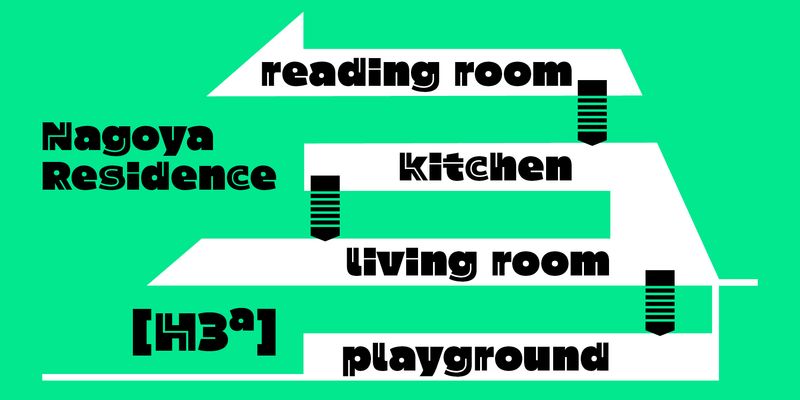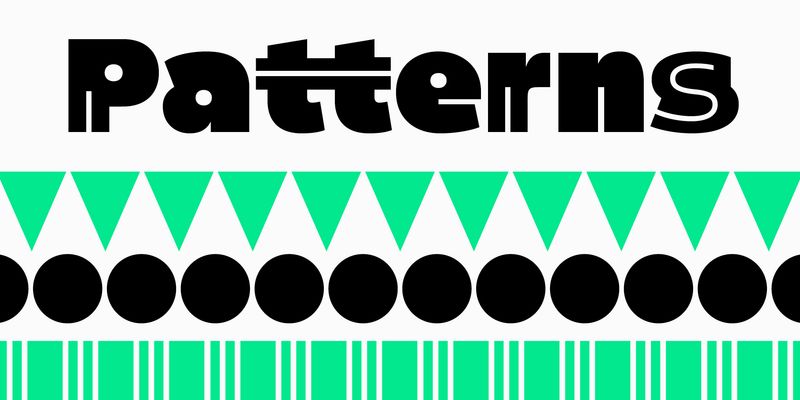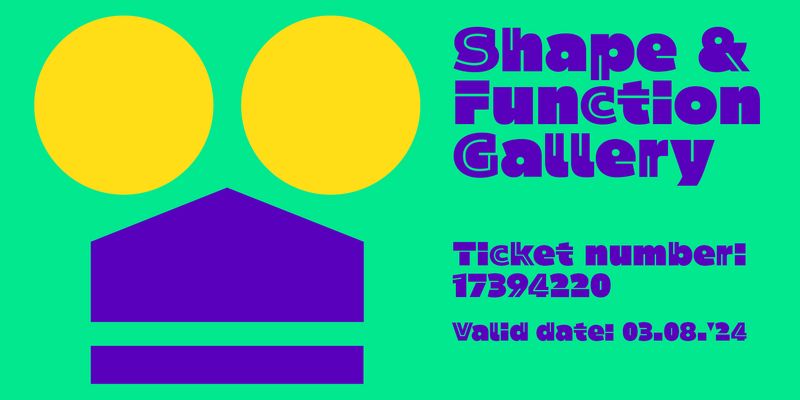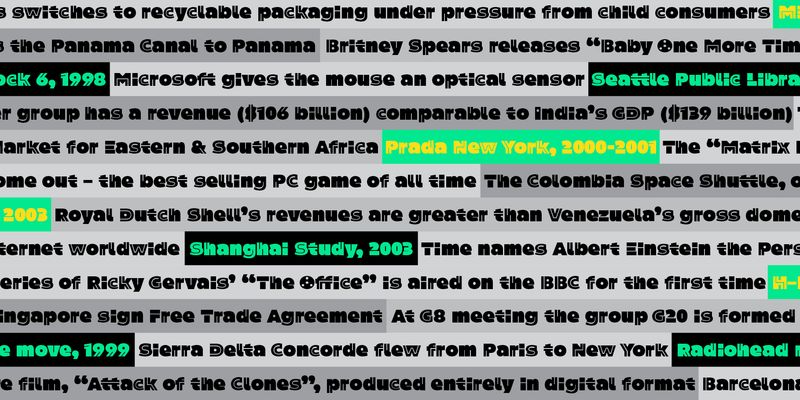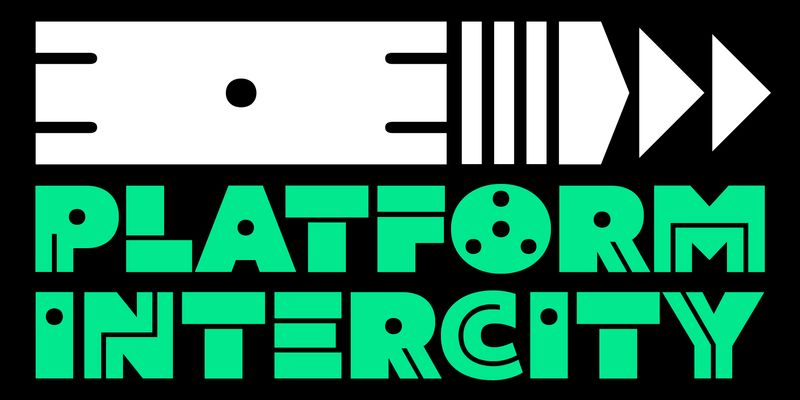
The first letters of Joc Display typeface were designed to accompany an interactive exhibition that encourages children aged 5 to 9 to craft their own toys by assembling various simple shapes. These shapes inspired the letter designs, which have been converted into symbols for the typeface.
The name “Joc” connects the word for “game” in both Catalan and Romanian, reflecting the playful nature of the typeface, the place where its’ design was born and the creator’s native roots.